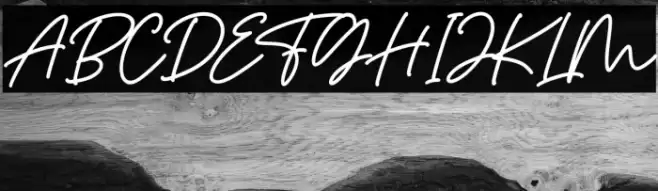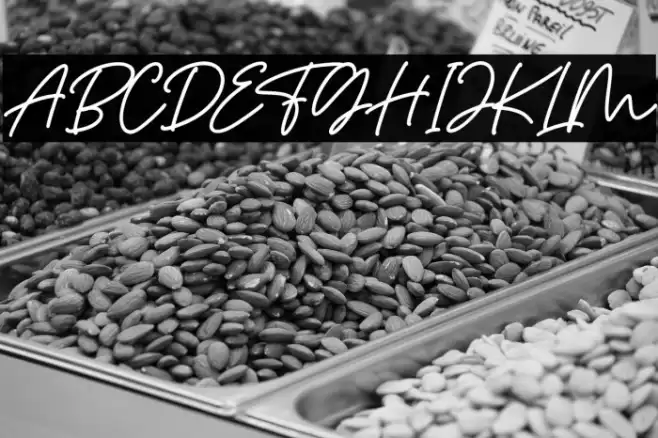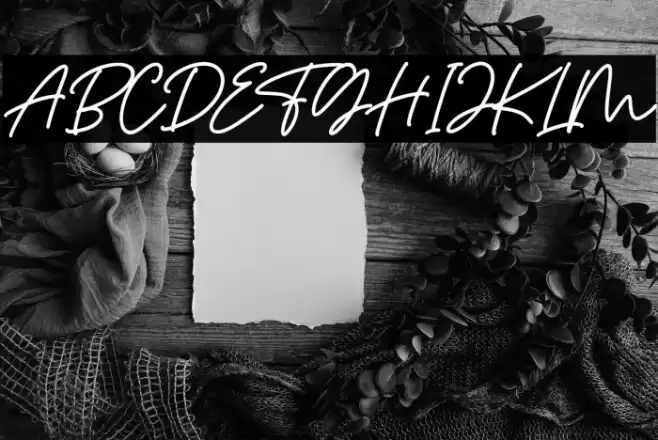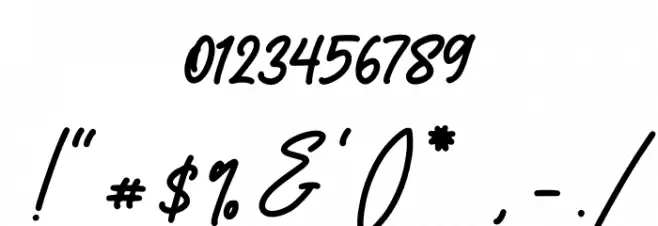
Romedance Font
Romedance Description
This font features a lively and flowing script style, characterized by its elegant and fluid strokes. The letters are connected in a seamless manner, creating a sense of movement and grace. The uppercase letters are bold and slightly slanted, while the lowercase letters maintain a consistent flow with a more delicate touch. The numerals and special characters are crafted with the same attention to detail, ensuring a cohesive look throughout. This font exudes a sense of sophistication and charm, making it ideal for projects that require a personal and artistic touch.
A lively and elegant script font with fluid, connected strokes from Uncategorized fonts.
- Font: Romedance
- Proposed Projects: Ideal for wedding invitations, greeting cards, branding, and logo design.
- Overall Style: Elegant
- Use Case: Logos, Invitations, Artistic projects